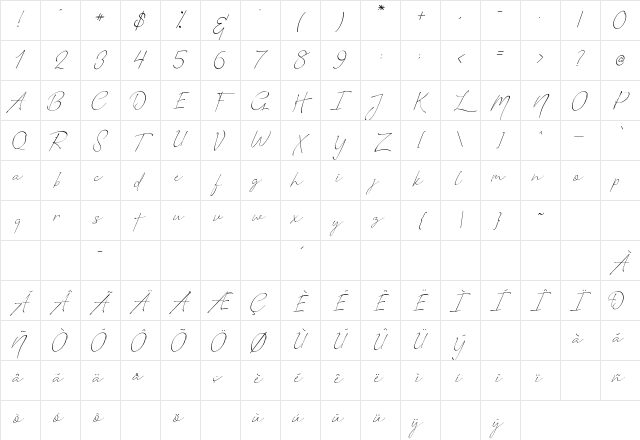
Romantic Couple Regular
Design Context for Romantic Couple
Romantic Couple is a composed and adaptable typeface that performs quietly and consistently across a wide range of design contexts.
Pro Tip: Use Romantic Couple in both headline and body roles to test its range before committing to a single application.